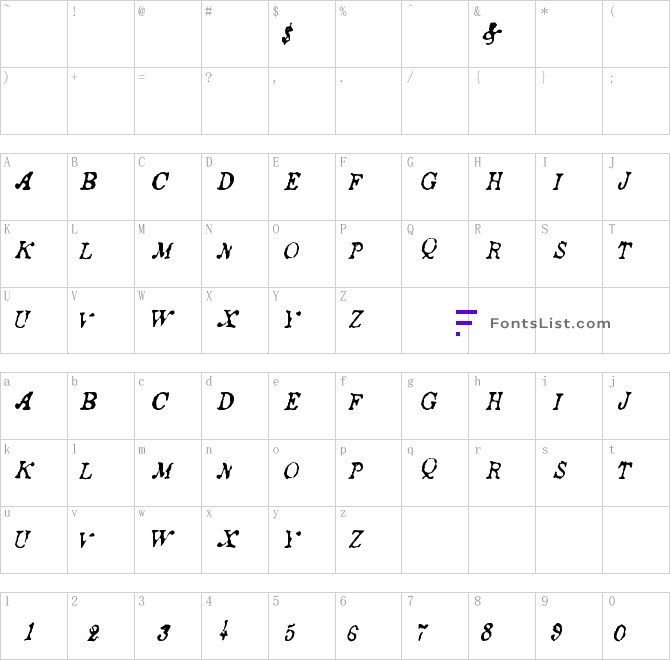
- Font Name:AncientStory
AncientStory.ttf is a very beautiful artistic font, AncientStory.ttf is widely used in the design and printing of various books and pictures,AncientStory.ttf has a strong visual impact,AncientStory.ttf is a commonly used font in newspapers, magazines and books, and is used in posters, e-commerce Poster design, store design, logo design, font design and other fields.AncientStory.